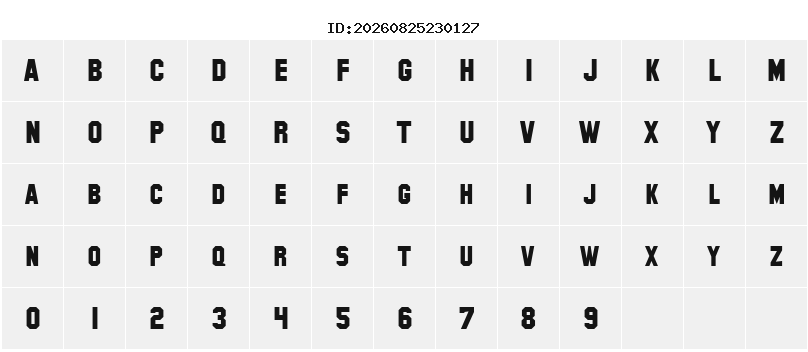
SF Collegiate Solid Preview
• Font Name: SF Collegiate Solid
• Full Font Name: SF Collegiate Solid
About SF Collegiate Solid.ttf
SF Collegiate Solid.ttf is a modern, elegant sans-serif font designed for ultimate readability and visual harmony. Perfect for branding, headlines, web design, and print materials.